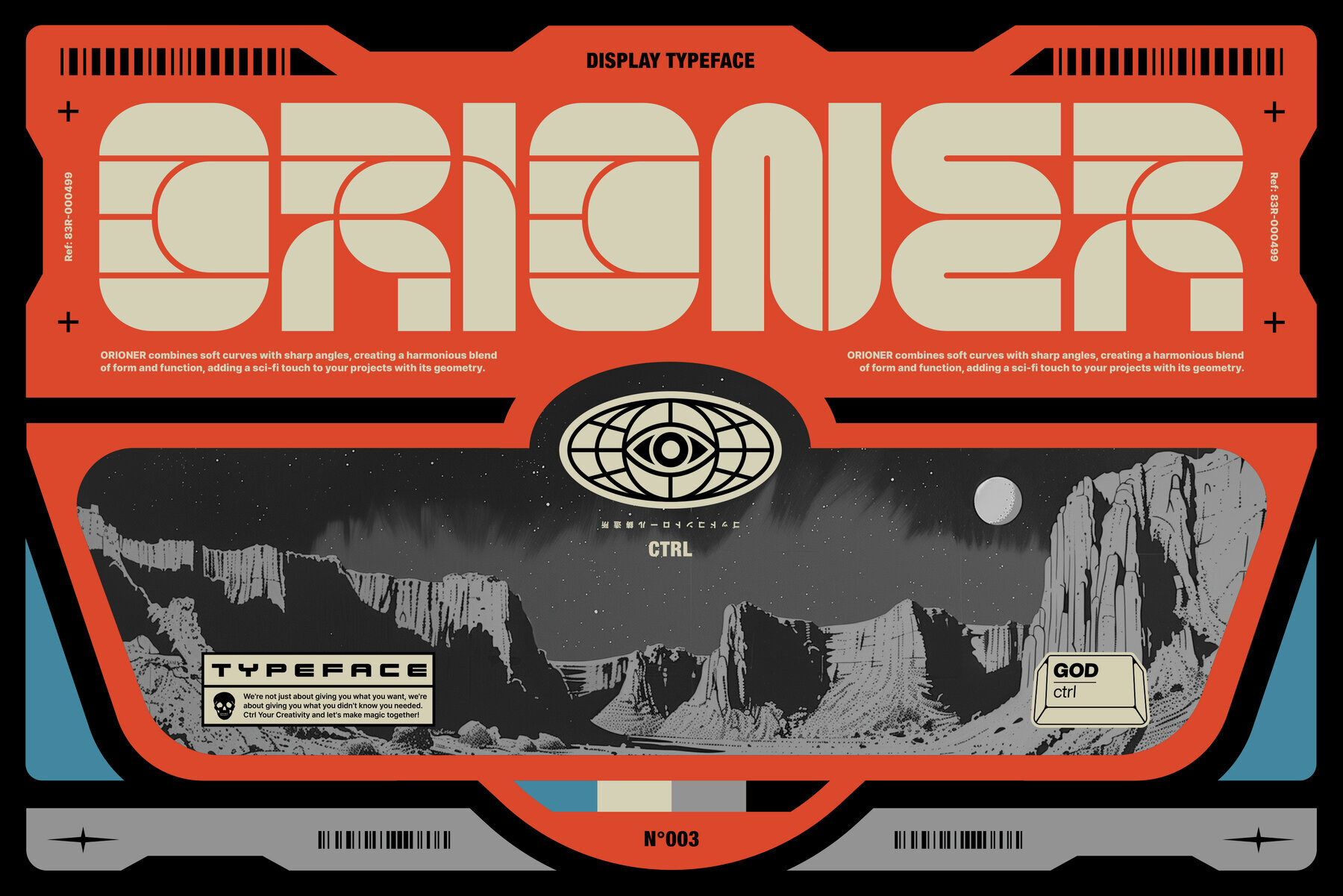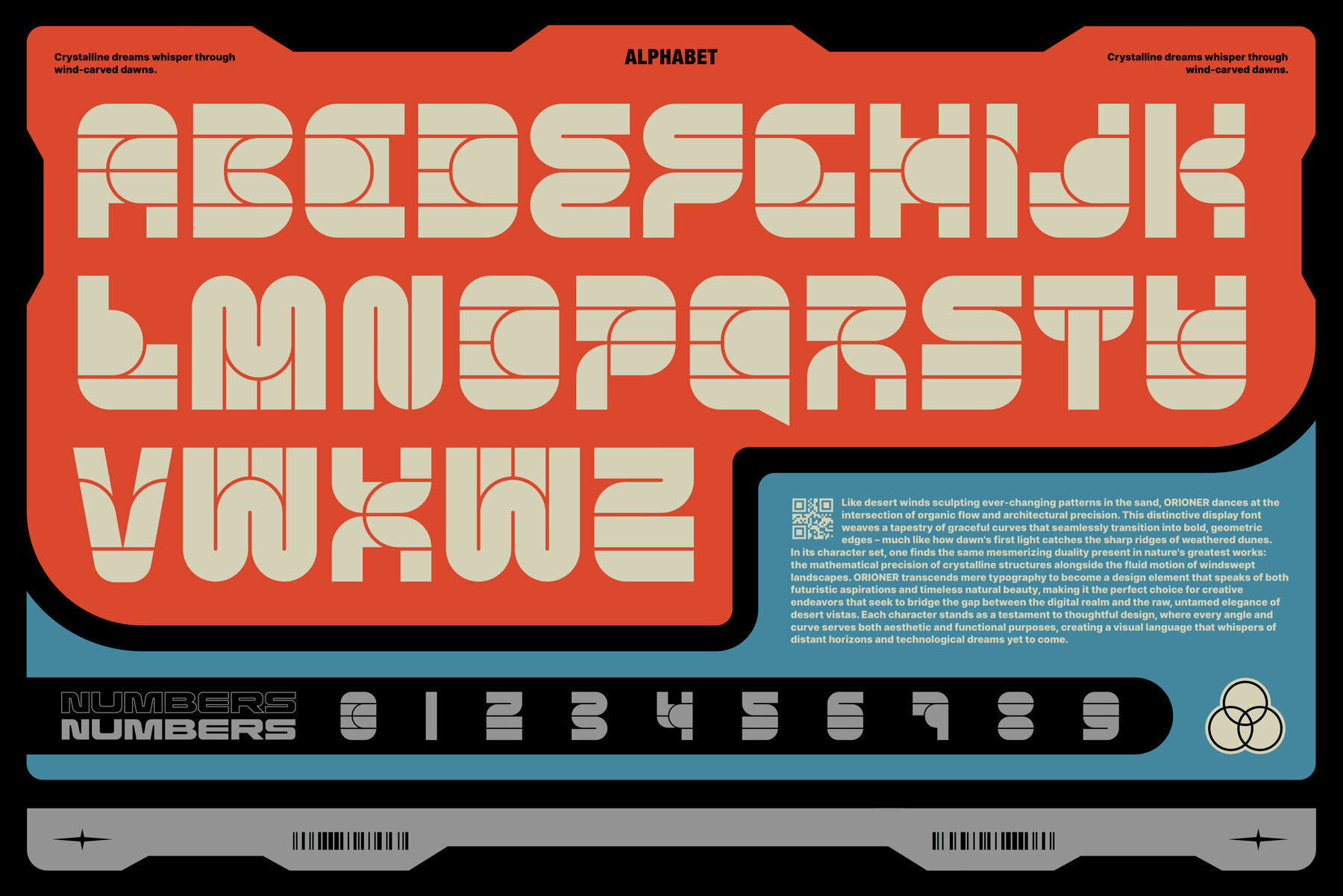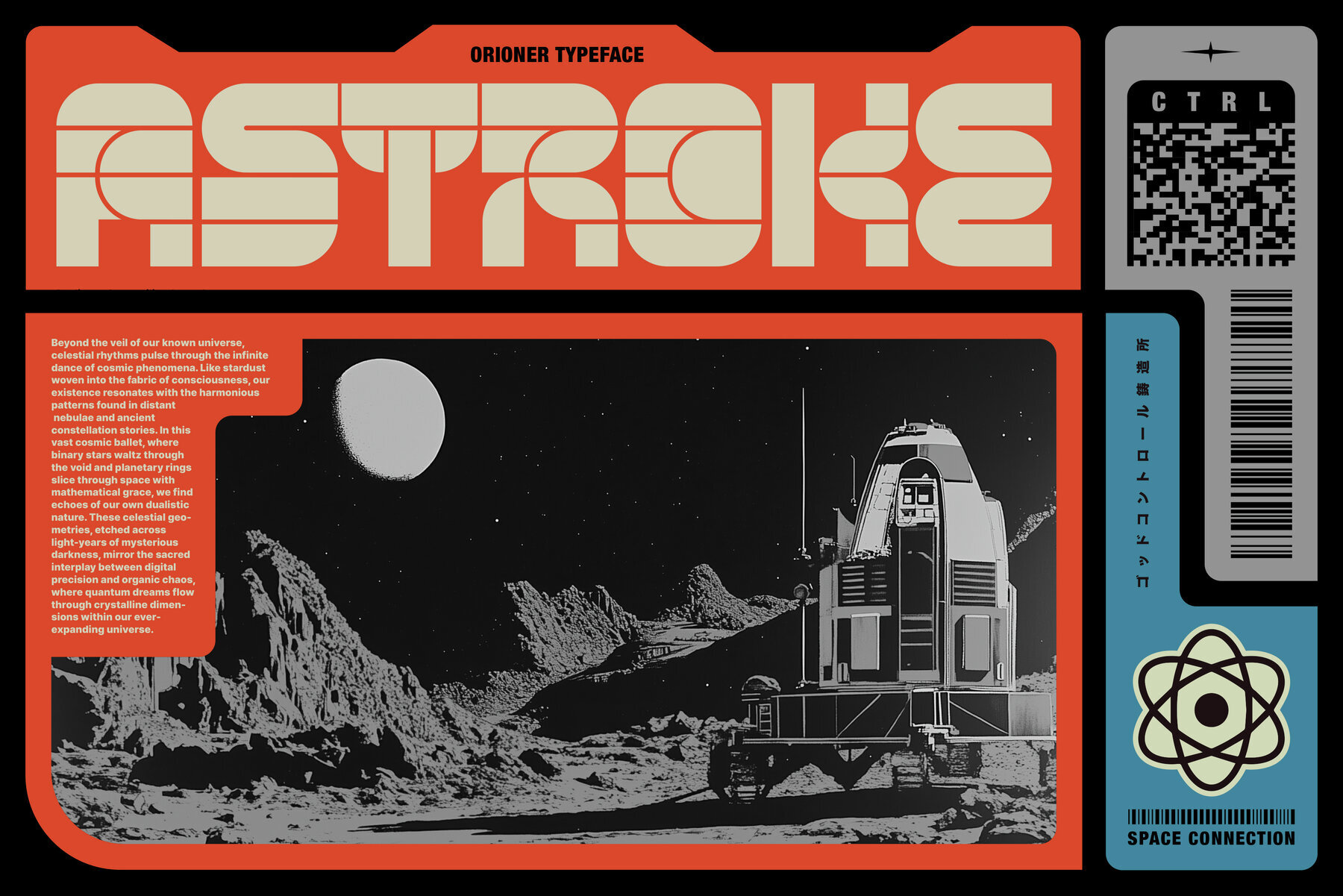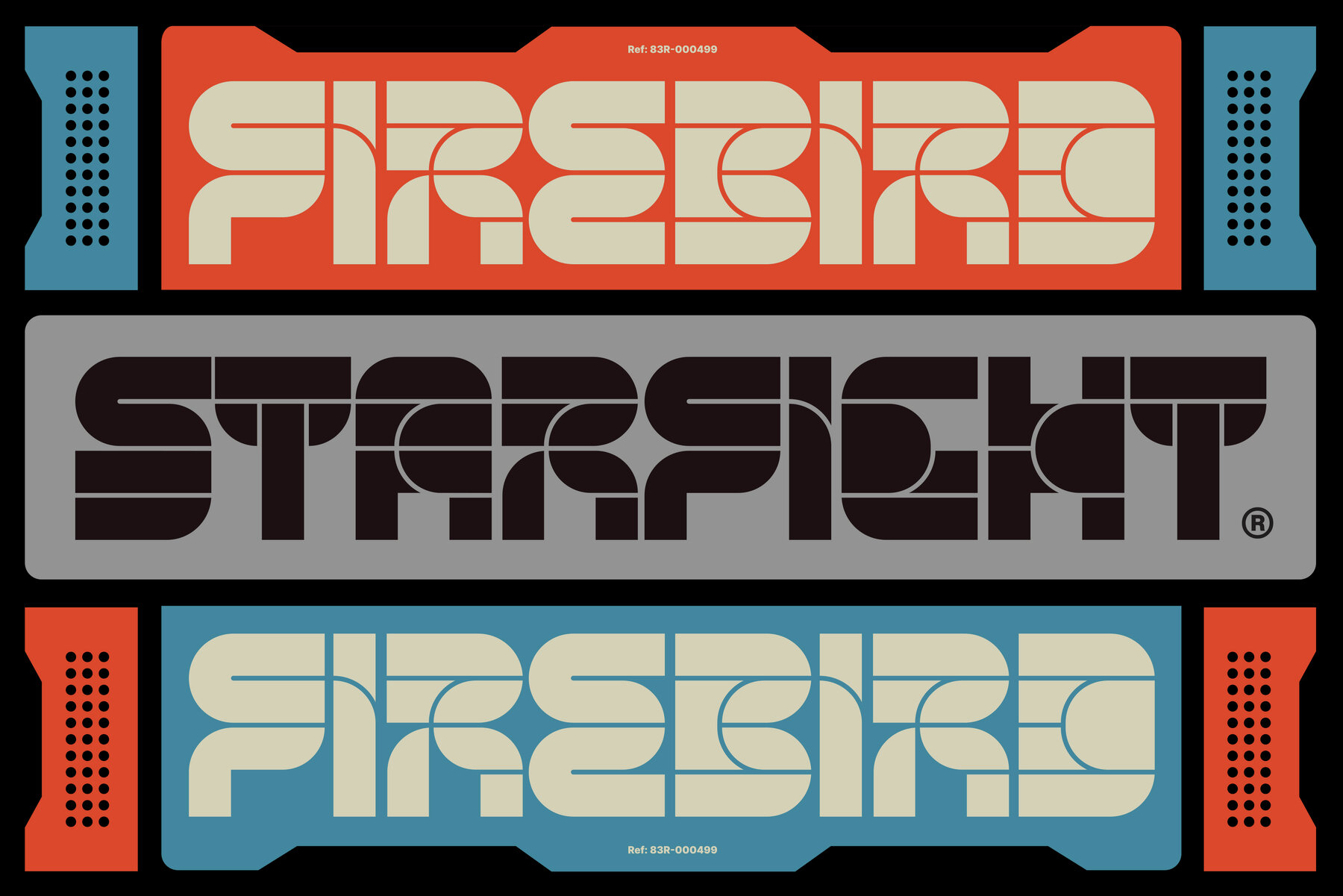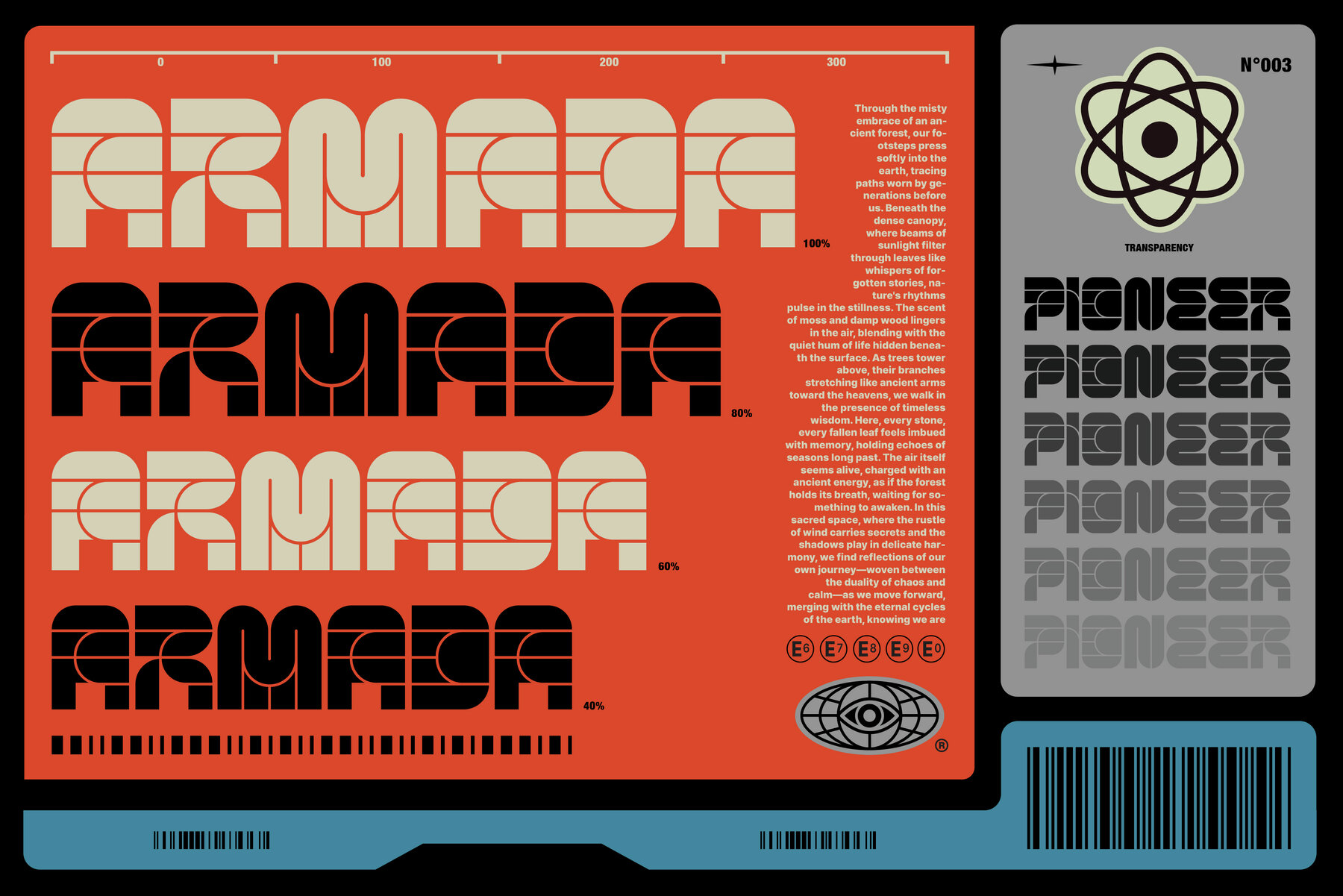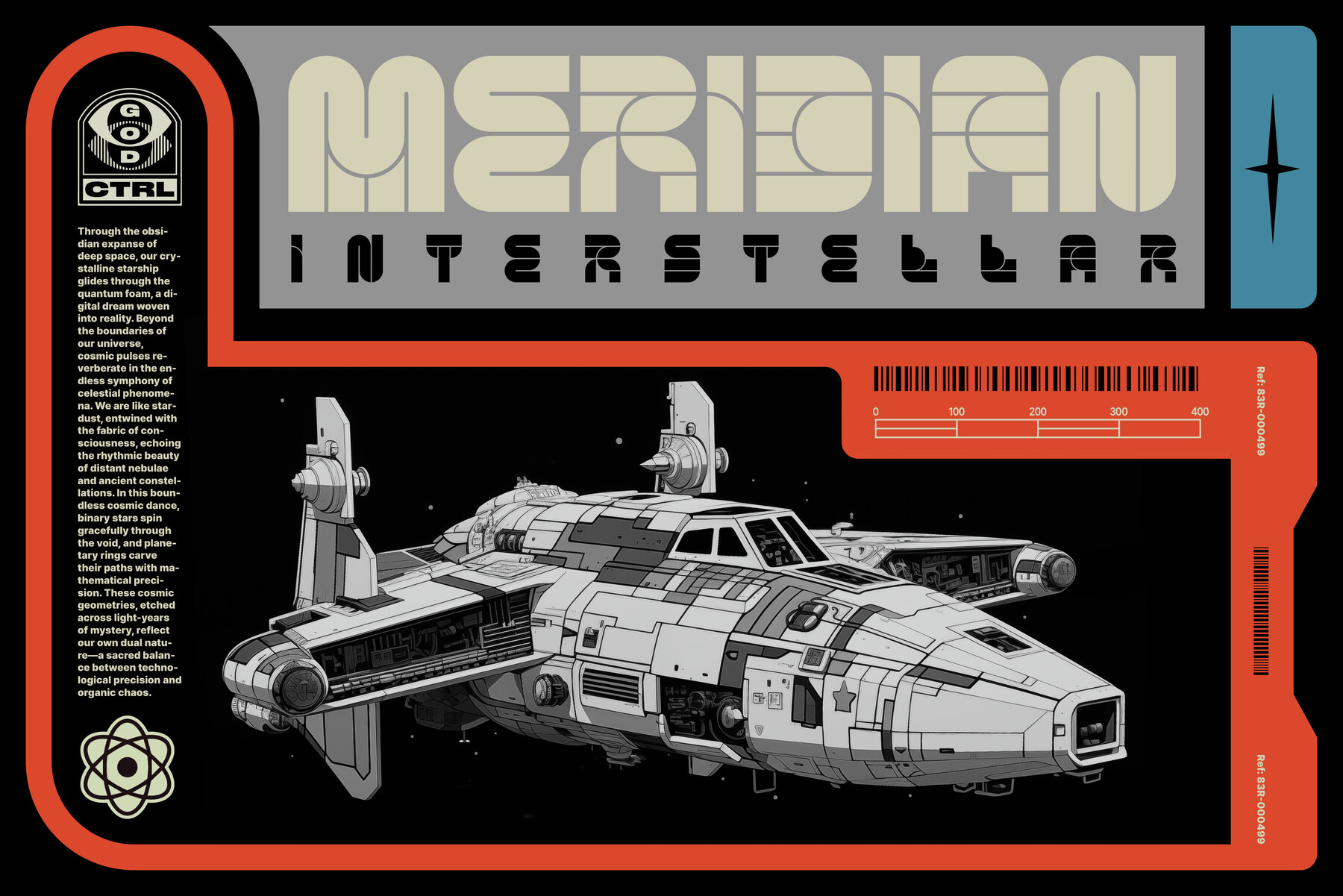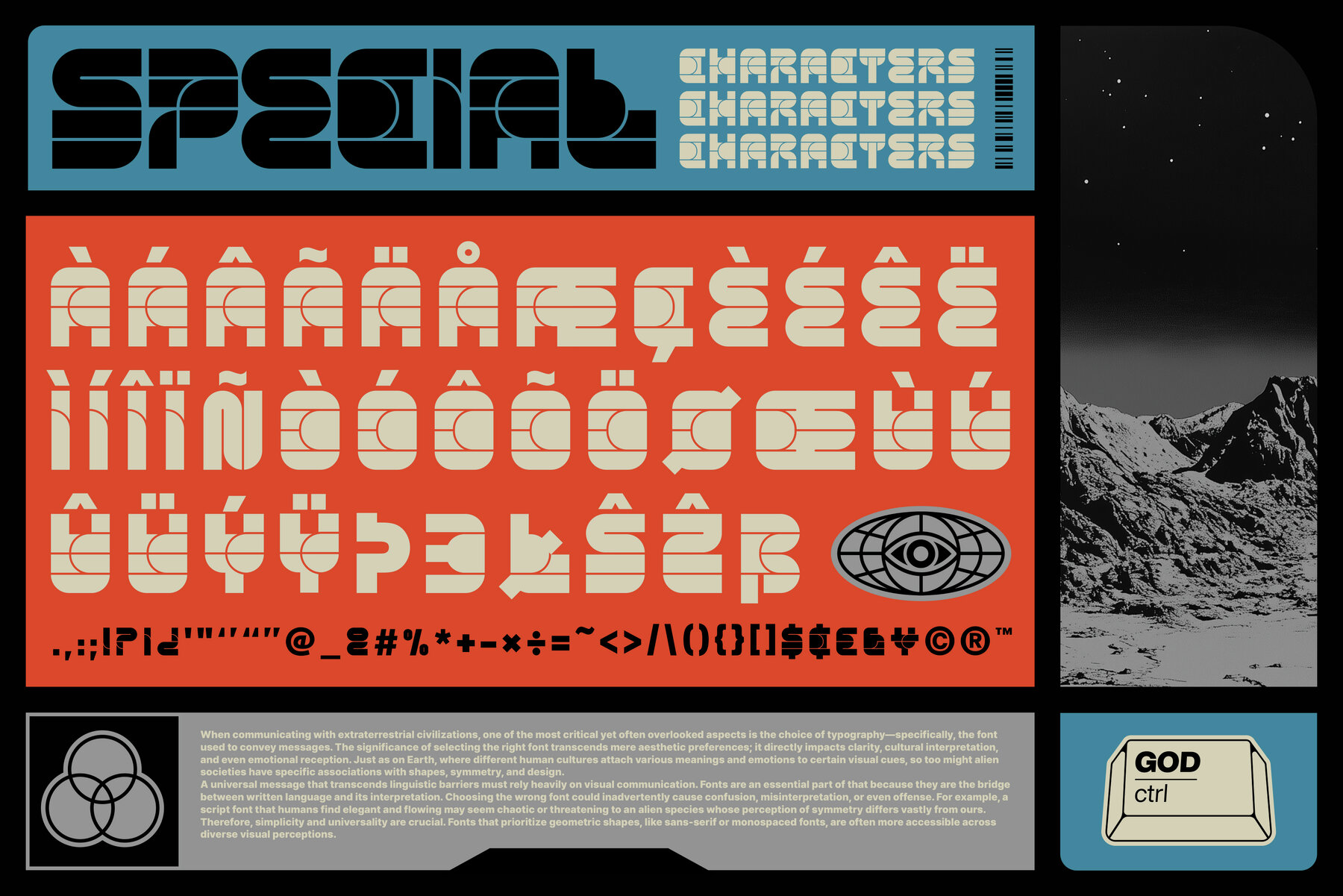
Orioner Font
Orioner
Make a bold statement with this futuristic display font that combines smooth curves with razor-sharp angles, creating a truly unique aesthetic. Orioner is perfect for designs that demand attention, like posters and titles. Inspired by sci-fi flair and a touch of brutalist grit, this font will help you control your creativity and embrace a sense of organized chaos in your design projects.
With 190 unique characters, including special characters and punctuation, Orioner offers versatility and depth for any digital design. Use this font to inject bold energy into your work, transforming ordinary text into a striking visual experience. Perfect for graphic and digital designers looking for bold typefaces with a touch of the future.